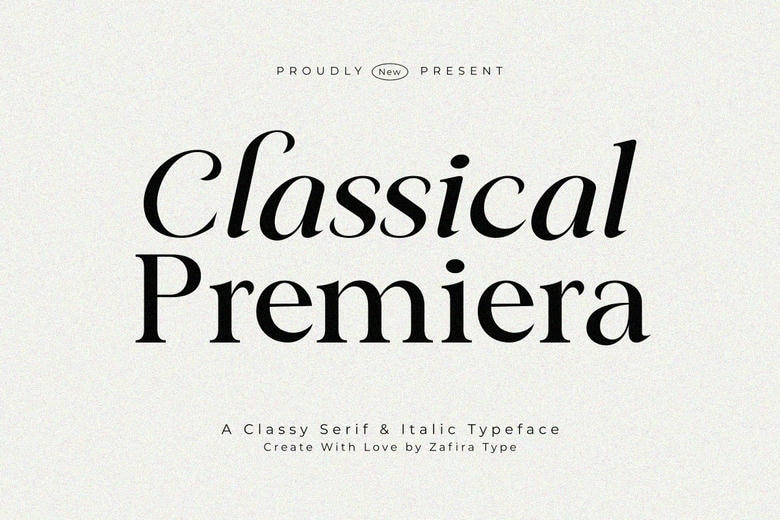
Classical Premiera Font
Classical Premiera is an advanced serif font which gracefully balances on the boundary between tradition and innovation. This font has its two distinguished fonts; Regular and Italic and dances on the page to achieve a perfect harmony. The Regular style is impressive with its big and well-balanced letters that give light to the page, which is suitable to make long, serious text.
In the meantime, the Italic will add a bang of excitement, giving your text an artistic feel that best fits in making accents on quotes or emphasizing the text. The classiness of Classical Premiera design can be considered a classy addition to any design, which is why this font is the ultimate solution to those who want to have a formal, but fashionable font.
Classical Premiera Serif Font